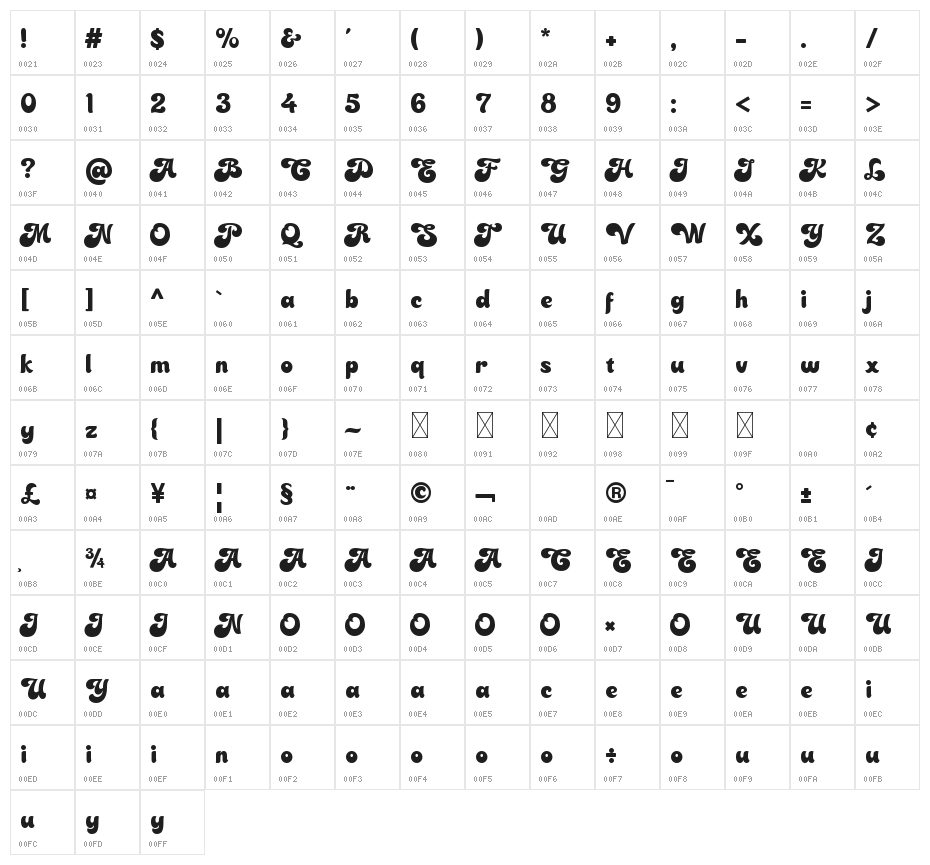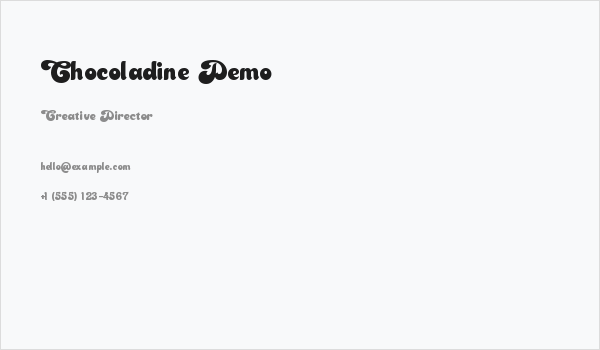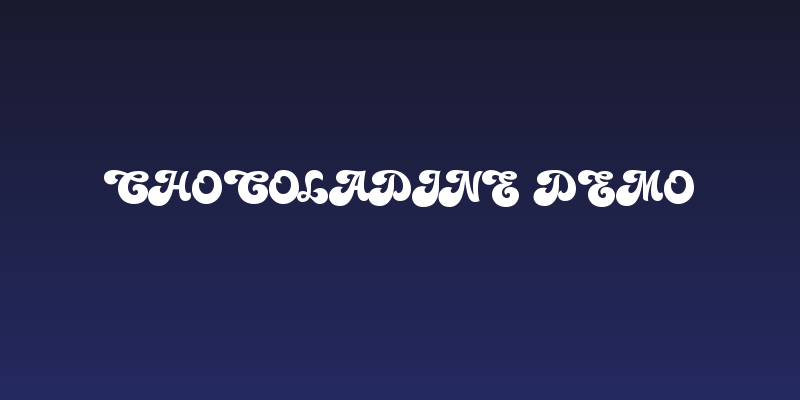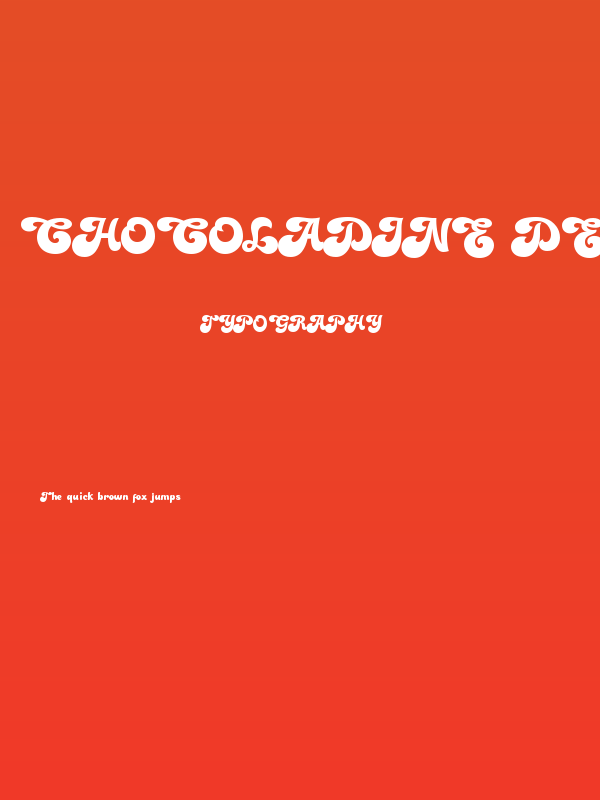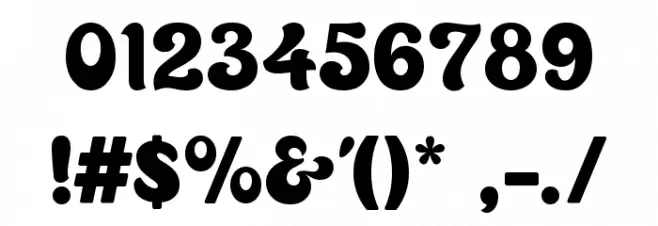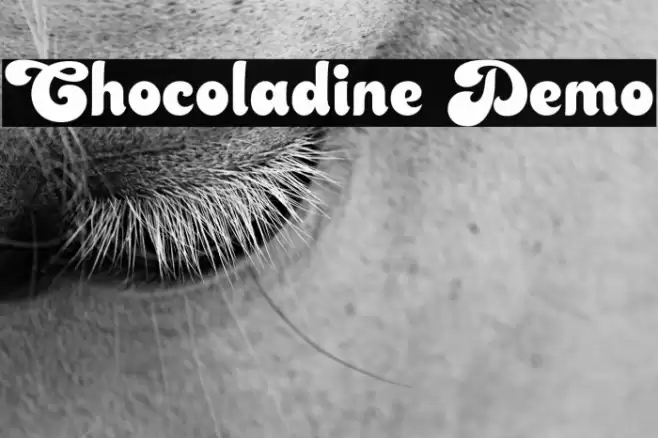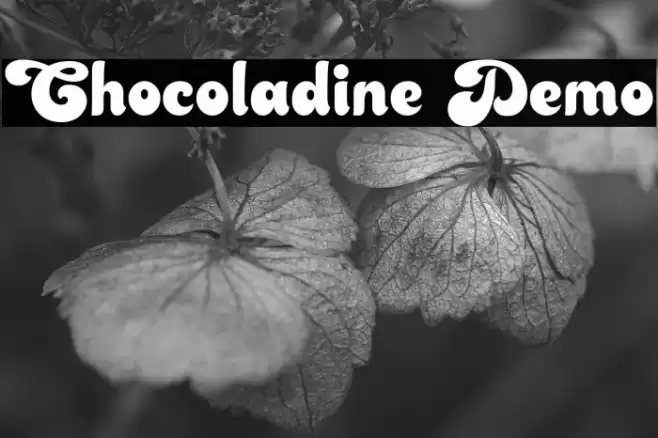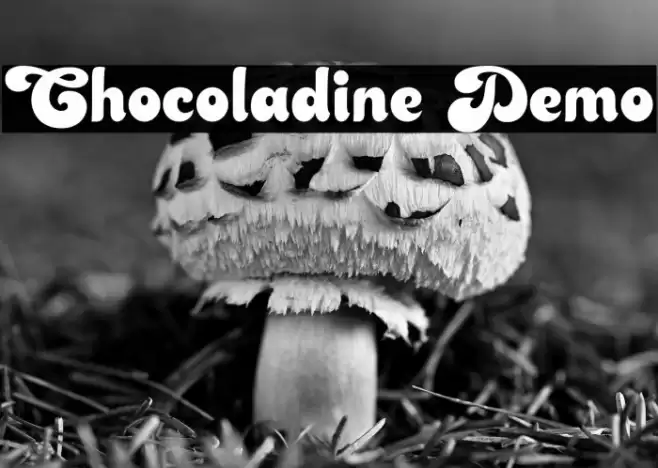
Chocoladine Demo Font
This playful and bold font features a whimsical design with thick, rounded strokes and a bubbly appearance. The uppercase letters are particularly decorative, with unique flourishes that add a sense of fun and creativity. The lowercase letters maintain a consistent style, offering a smooth and cohesive look. Numbers and special characters are designed to match the playful theme, making this font ideal for projects that require a lively and engaging aesthetic. Its bold weight and high contrast between strokes make it stand out, while the character spacing is relatively tight, enhancing its compact and energetic feel.